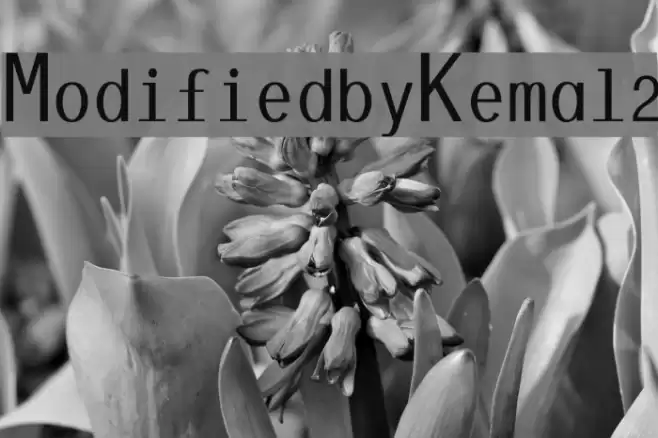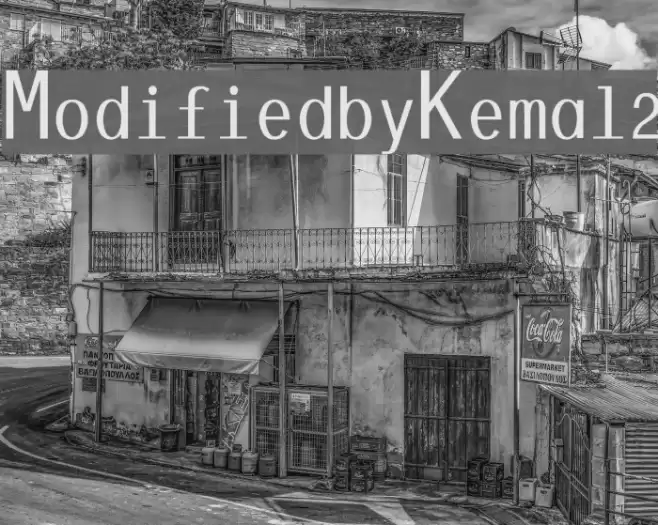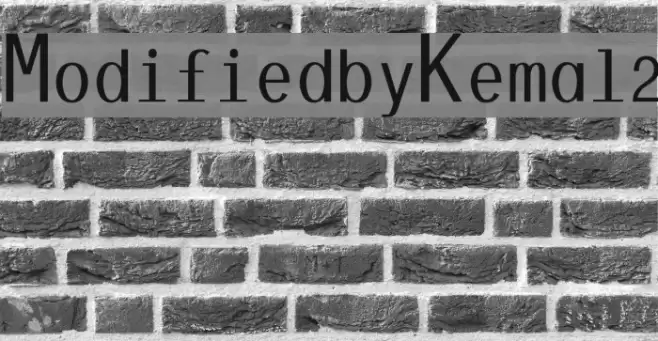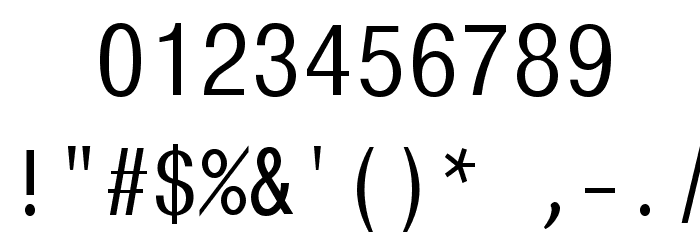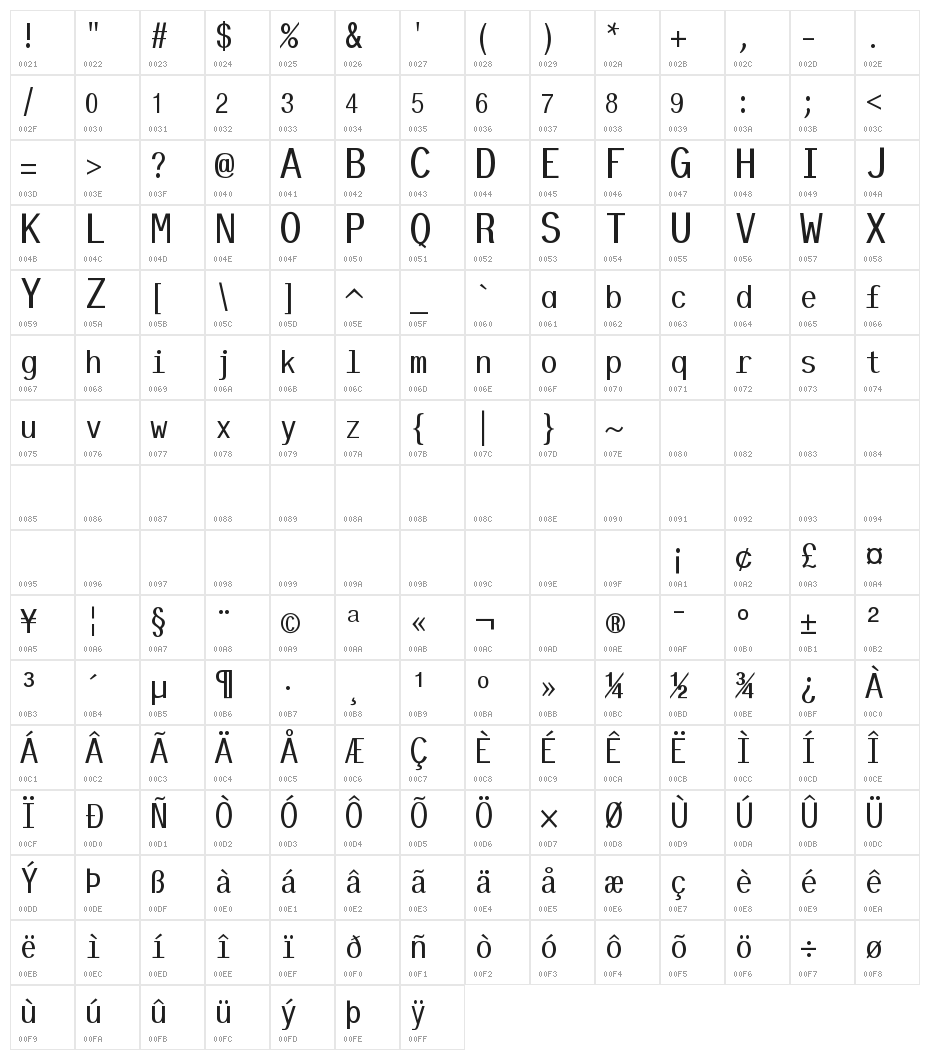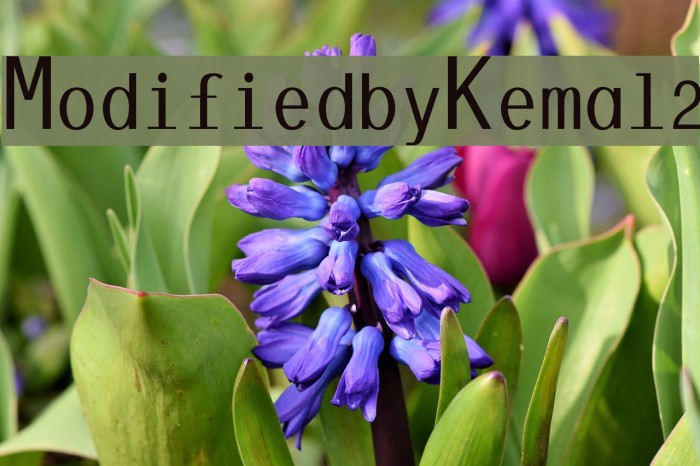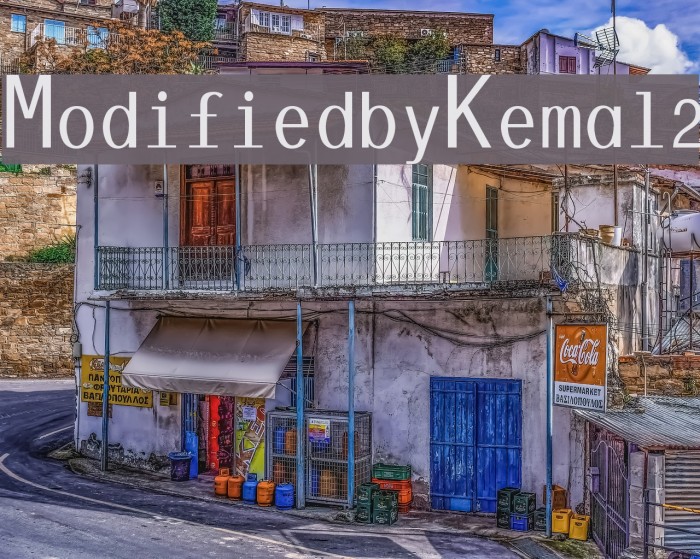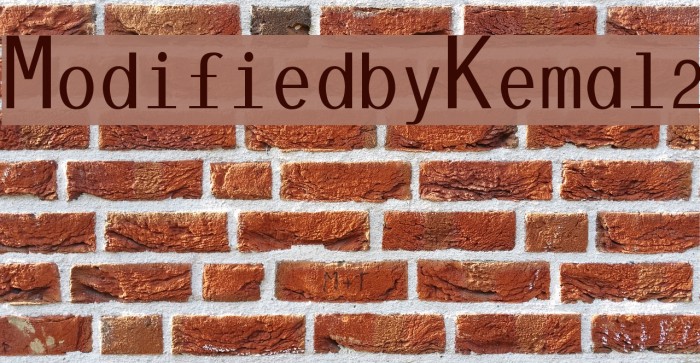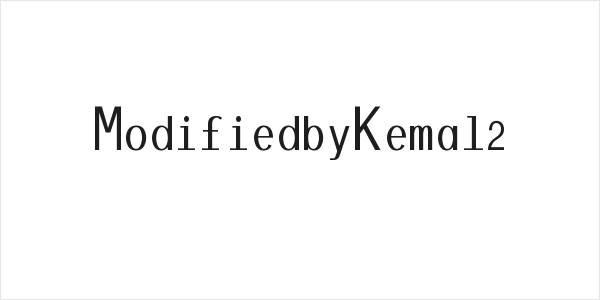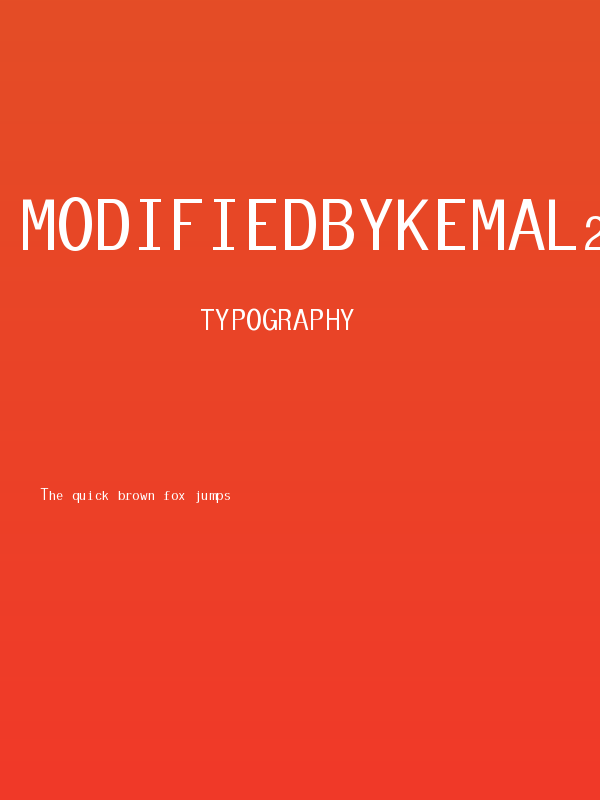
ModifiedbyKemal2 Font
ModifiedbyKemal2 Description
This font features a clean and modern sans-serif style with a slightly condensed appearance. The characters are well-defined with a uniform stroke width, providing a balanced and harmonious look. The uppercase letters are bold and assertive, while the lowercase letters maintain a consistent height and spacing, ensuring readability. The numerals are straightforward and align well with the overall design, making them suitable for various applications. Special characters are included, adding versatility to the font's use. The overall design is minimalistic, making it ideal for contemporary projects.
A modern, clean sans-serif font with a slightly condensed style from Sans Serif fonts.